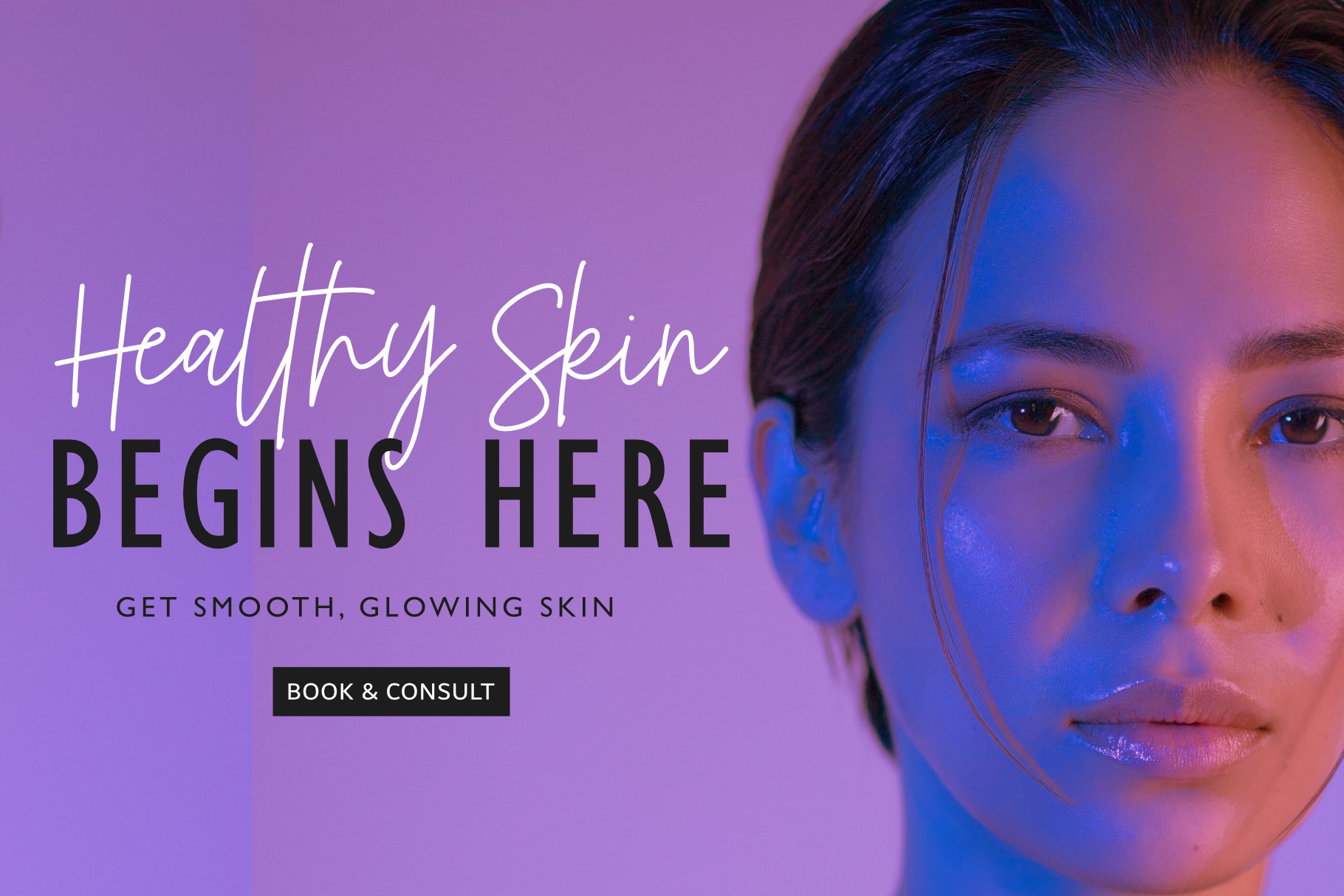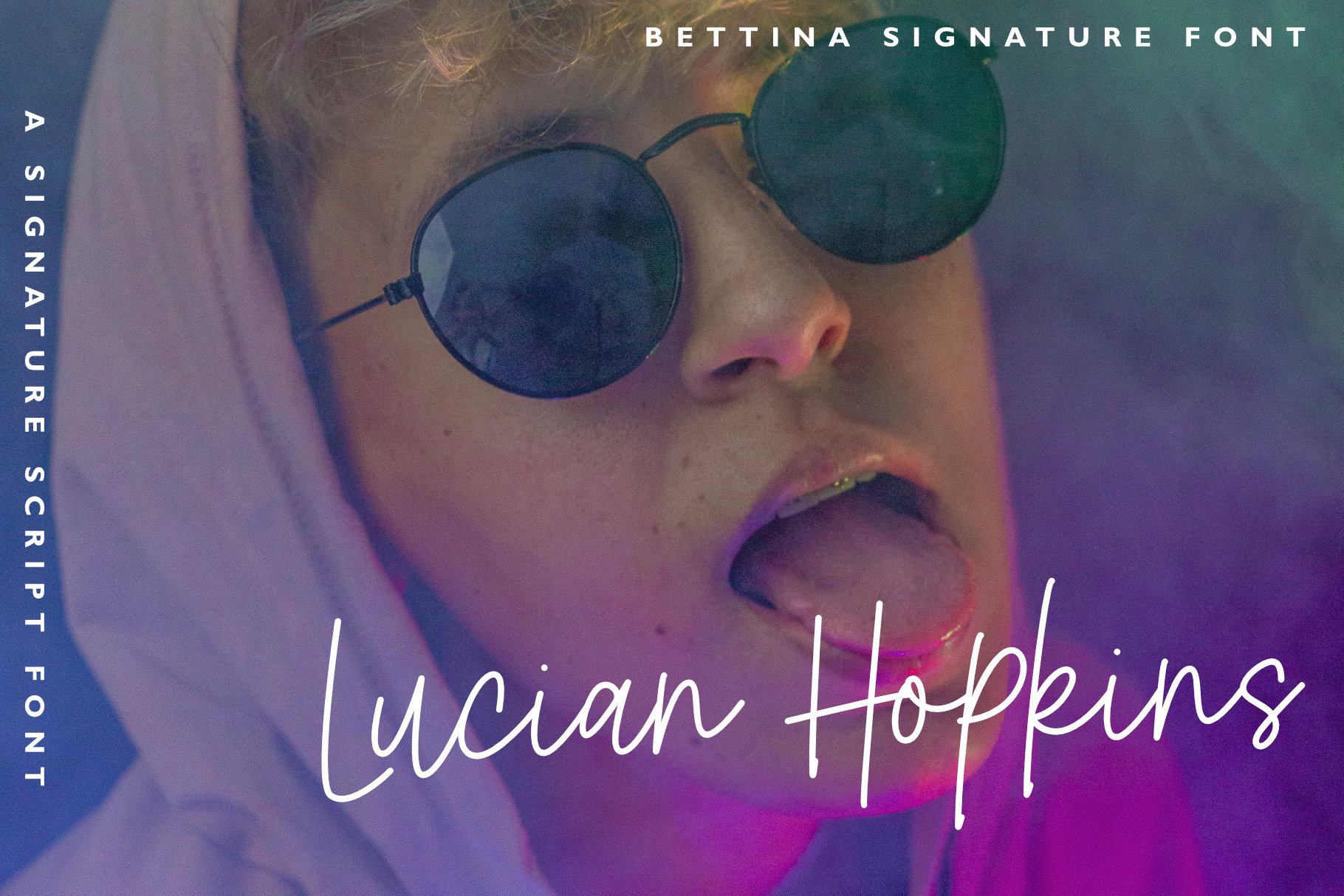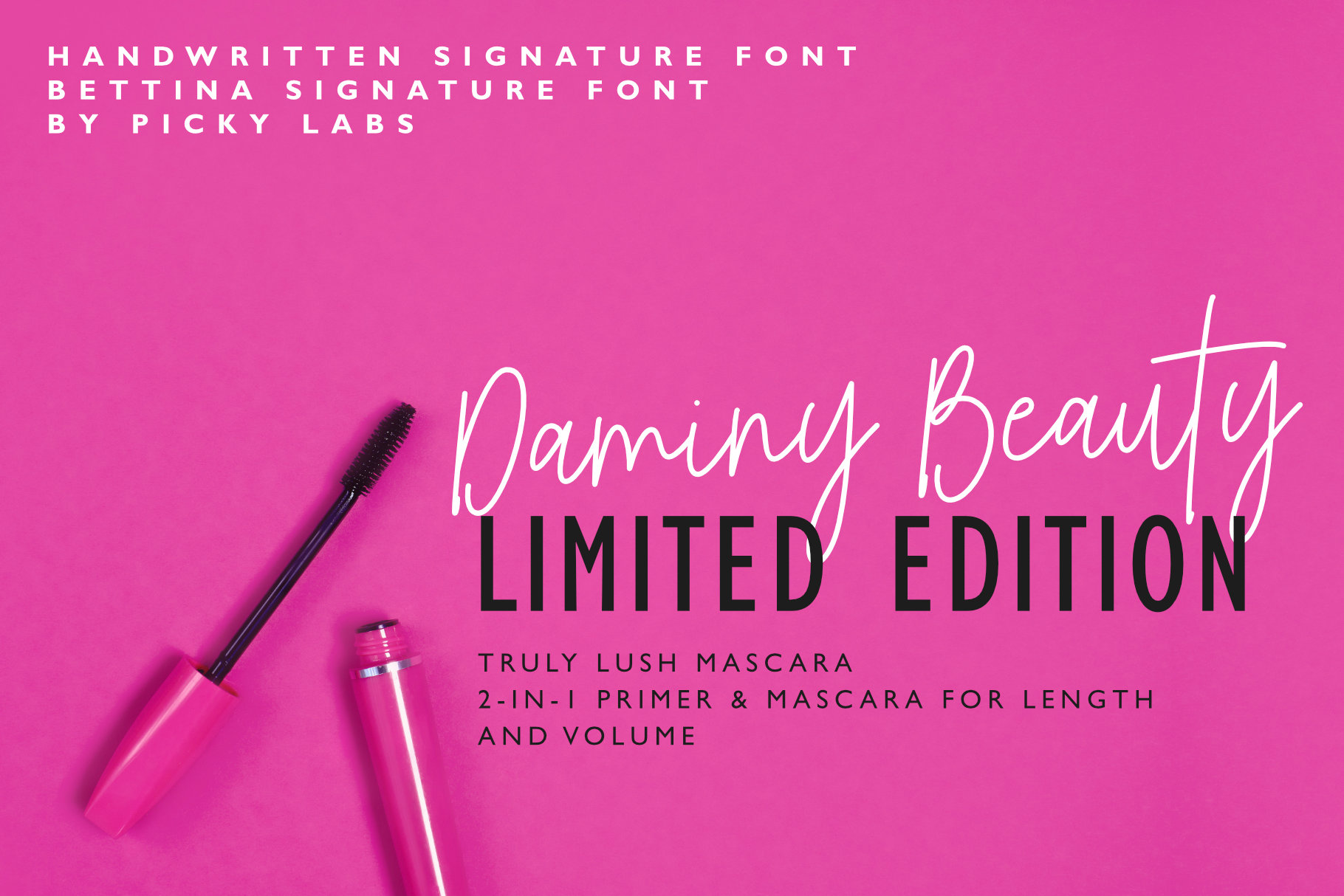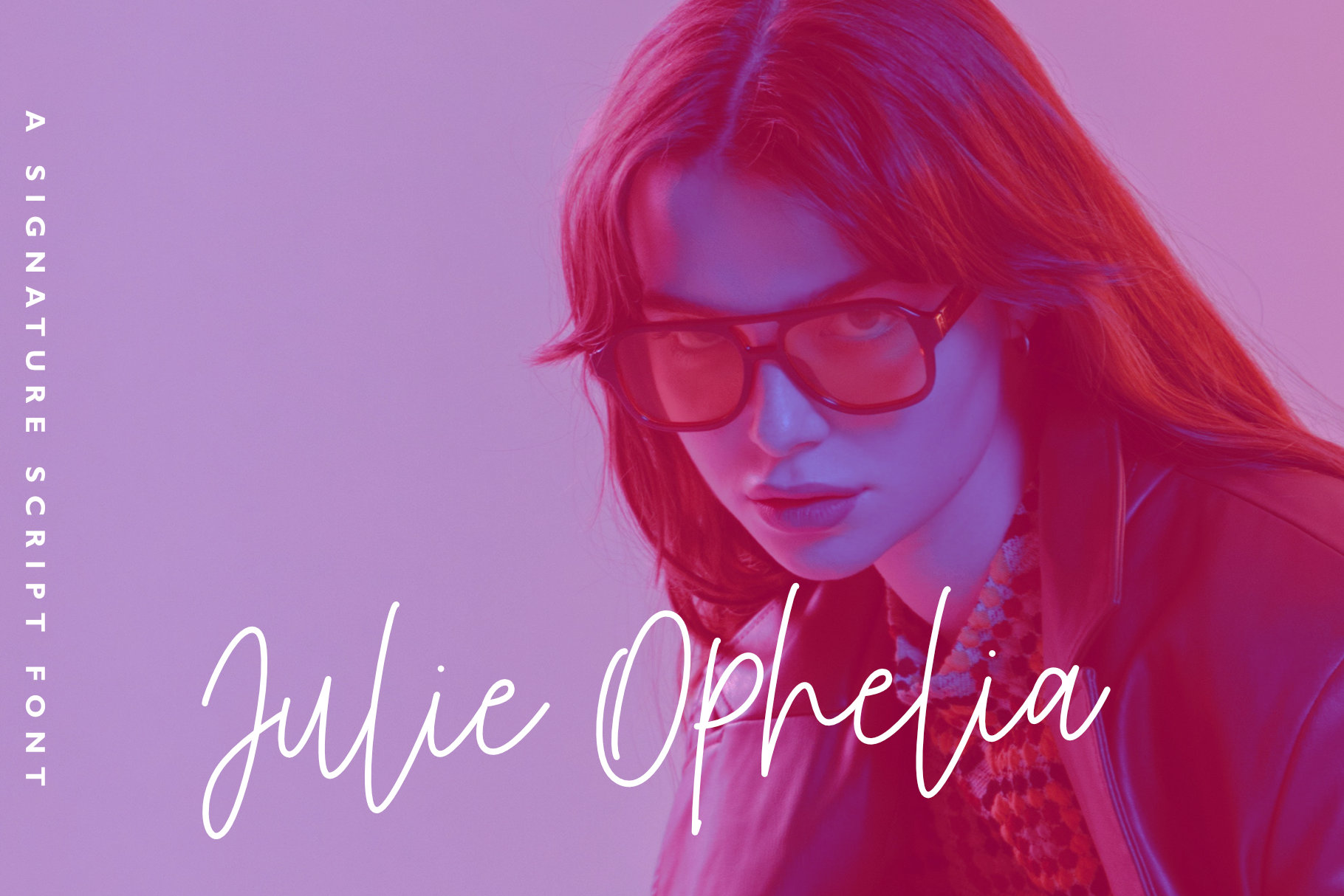
Bettina Signature Font
This font is free for commercial use, a script that will give instant class and style to your work. Bettina Signature is a great choice for branding, logos, social media posts, advertisements, blogging, and all your other lovely projects.